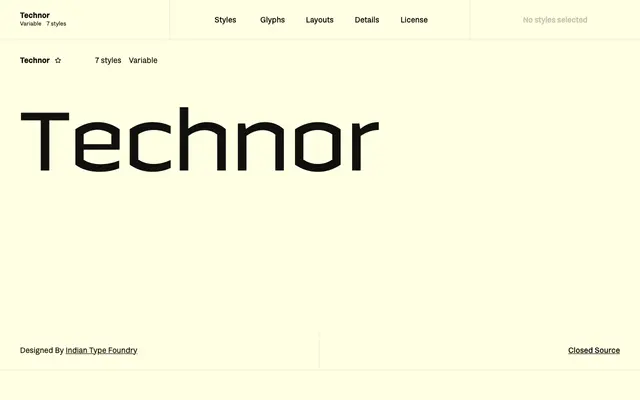
Technor
A constructed geometric sans by Jean-Baptiste Morizot, built for display use across seven weights with monolinear strokes, flat sides and rounded terminals.
Designed for Indian Type Foundry and released via Fontshare in 2021, Technor is a wide, display-oriented geometric sans with monolinear strokes and flat letter sides. Characters feature rounded tops and bottoms where tradition allows, while letters such as 'E', 'F' and 'T' retain their flat terminals; single-storey 'a' and 'g' keep the forms simple. Inter-character spacing is deliberately tight, and the tall x-height of the lowercase makes it particularly suited to large-scale poster and headline work.
Constructed sans with monolinear strokes, flat sides, and single-storey letterforms — characteristics of geometric sans design, built explicitly for display use.